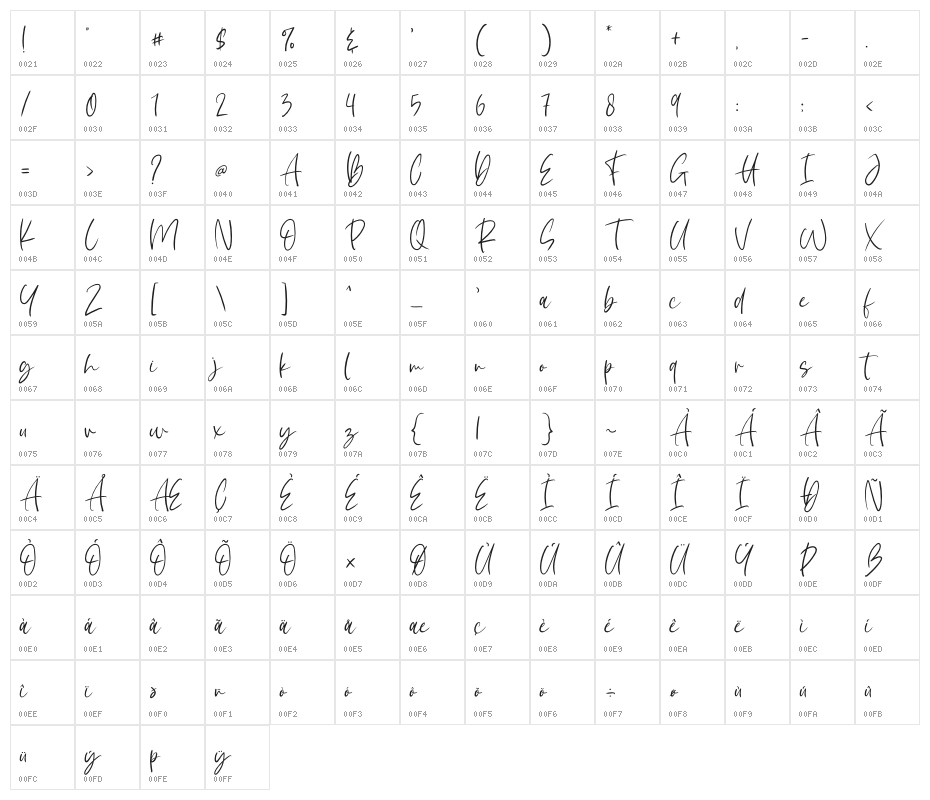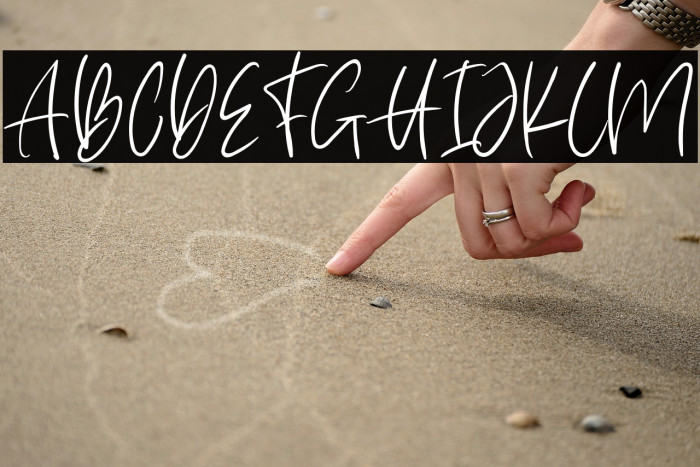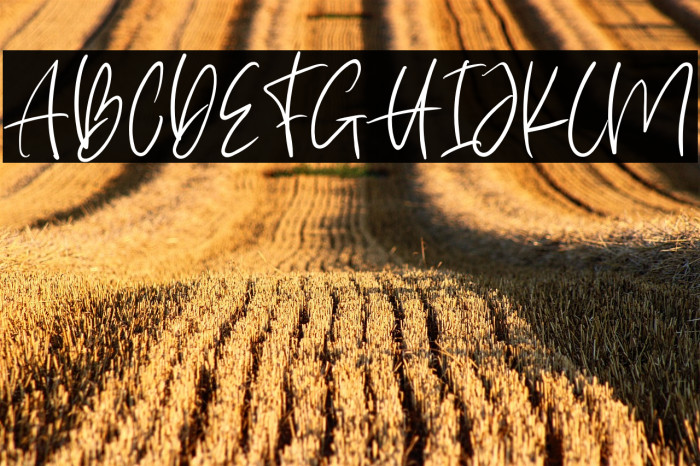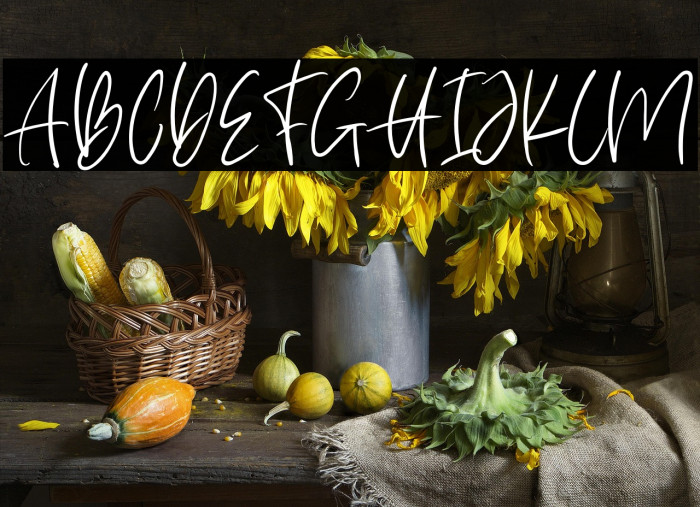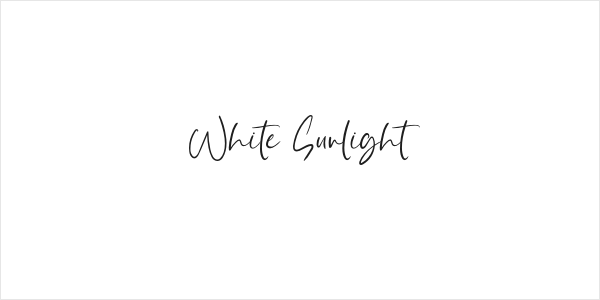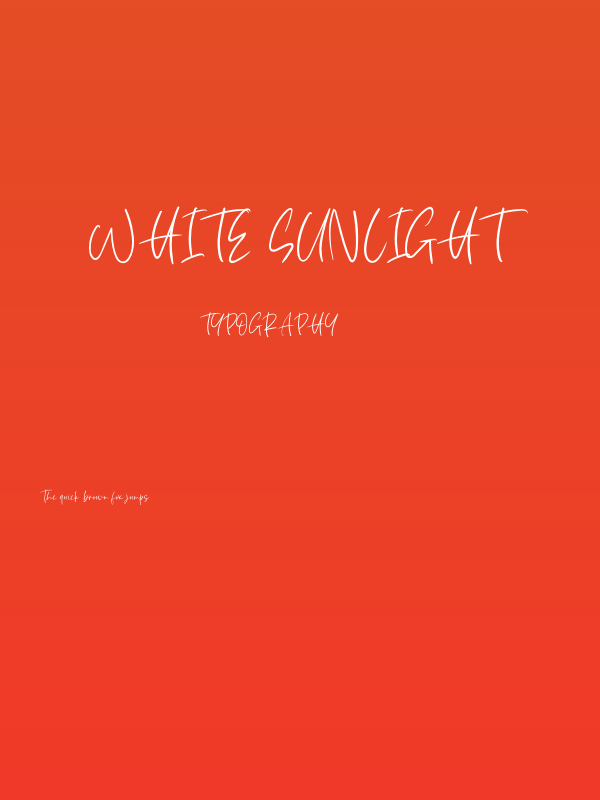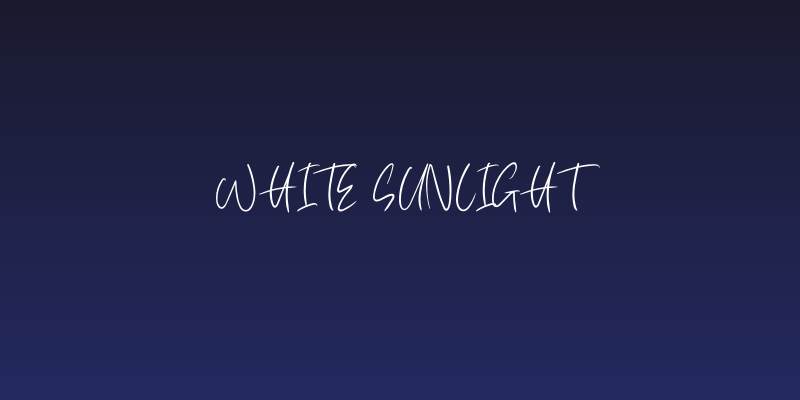
White Sunlight Font
White Sunlight Description
This font features a lively and dynamic handwritten style, characterized by its fluid and natural strokes. The letters are slightly slanted, giving a sense of motion and energy. The uppercase letters are bold and expressive, while the lowercase letters maintain a consistent flow with a touch of elegance. The numbers and special characters are crafted with the same attention to detail, ensuring a cohesive look across all elements. The overall appearance is casual yet sophisticated, making it suitable for a variety of creative projects.
| Proposed Projects | Ideal for wedding invitations, personal branding, social media graphics, and creative posters. |